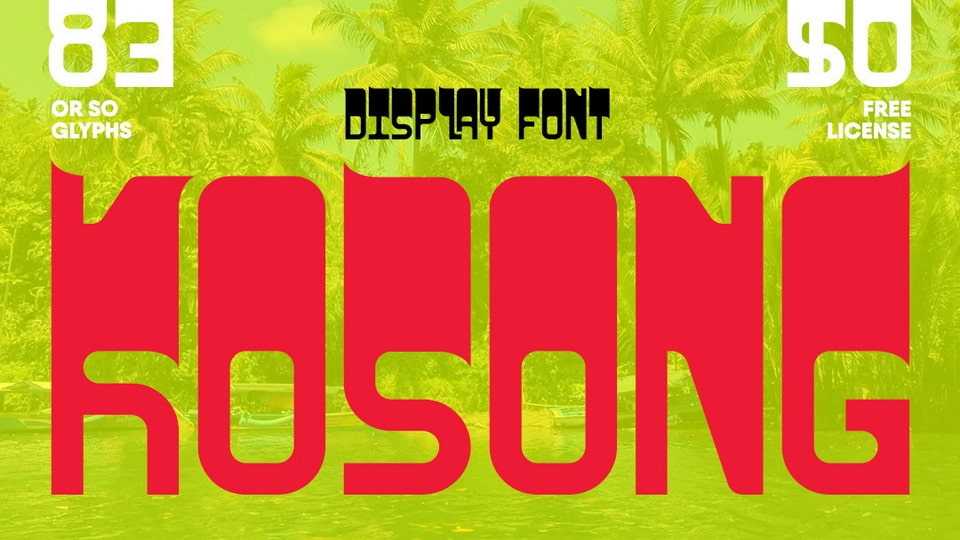
Download Kosong font, a bold reverse contrast display typeface designed to create an unconventional, eye-catching visual impact. Kosong font creates a unique visual experience that’s both intriguing and unforgettable.
Designer: Adam Ross